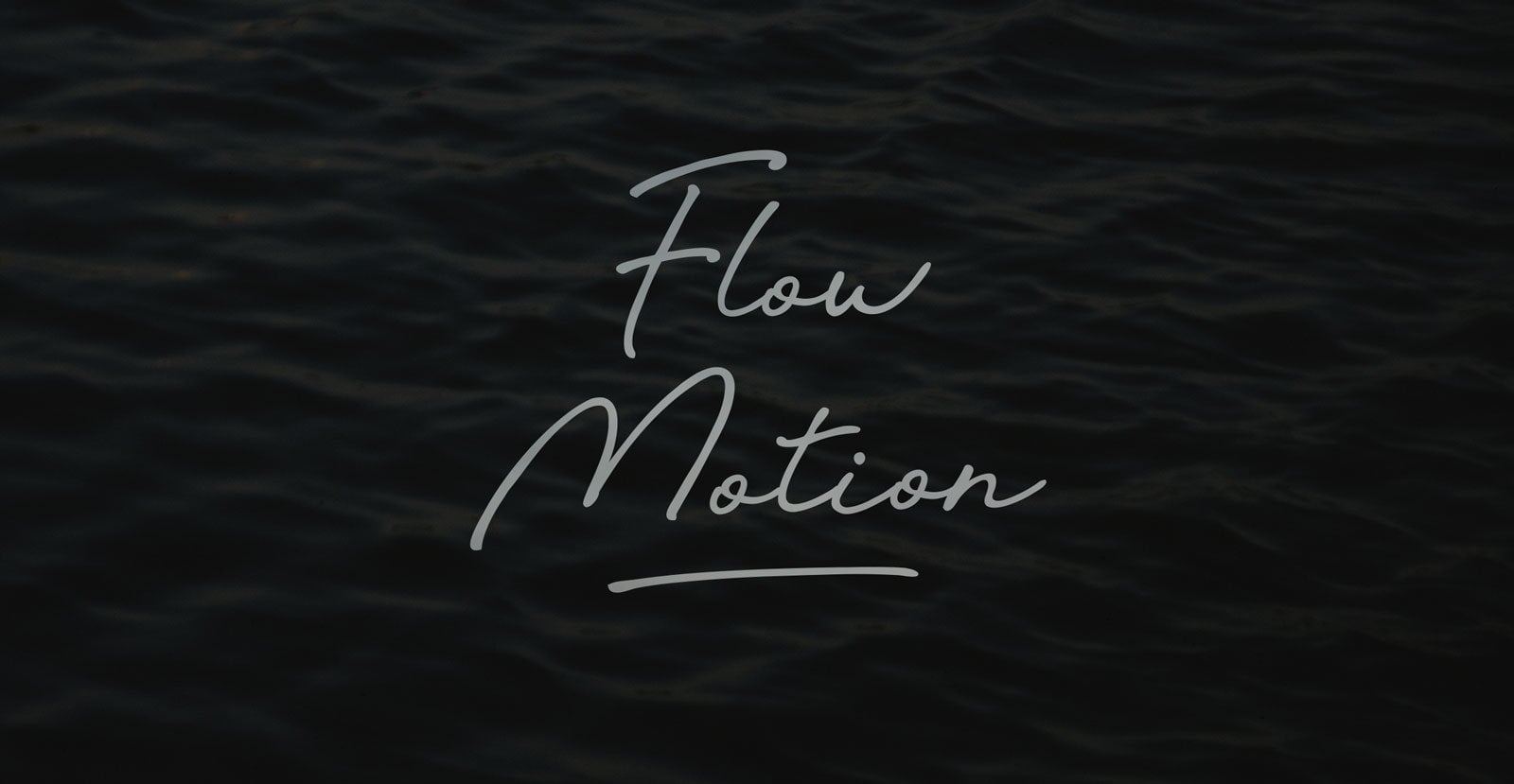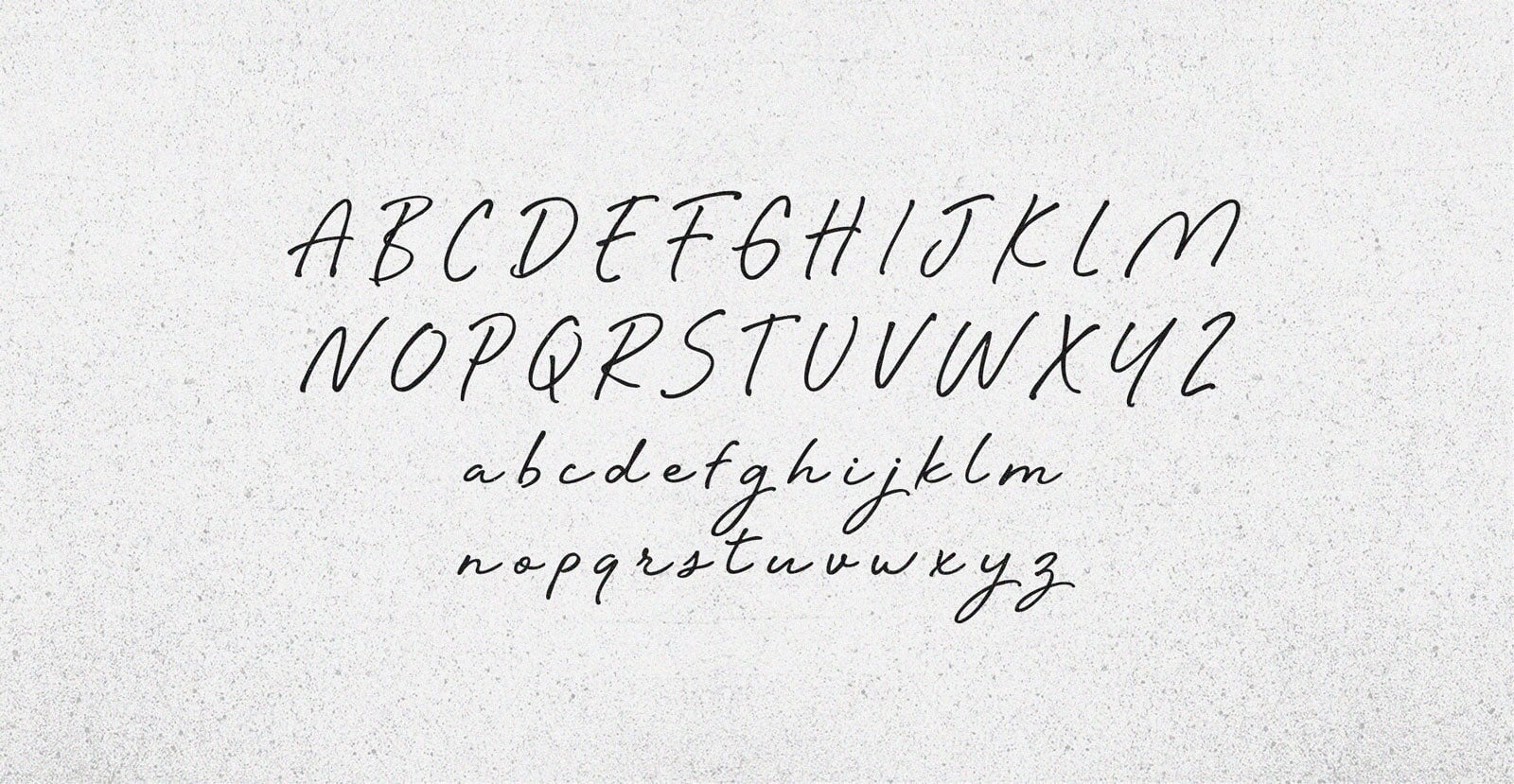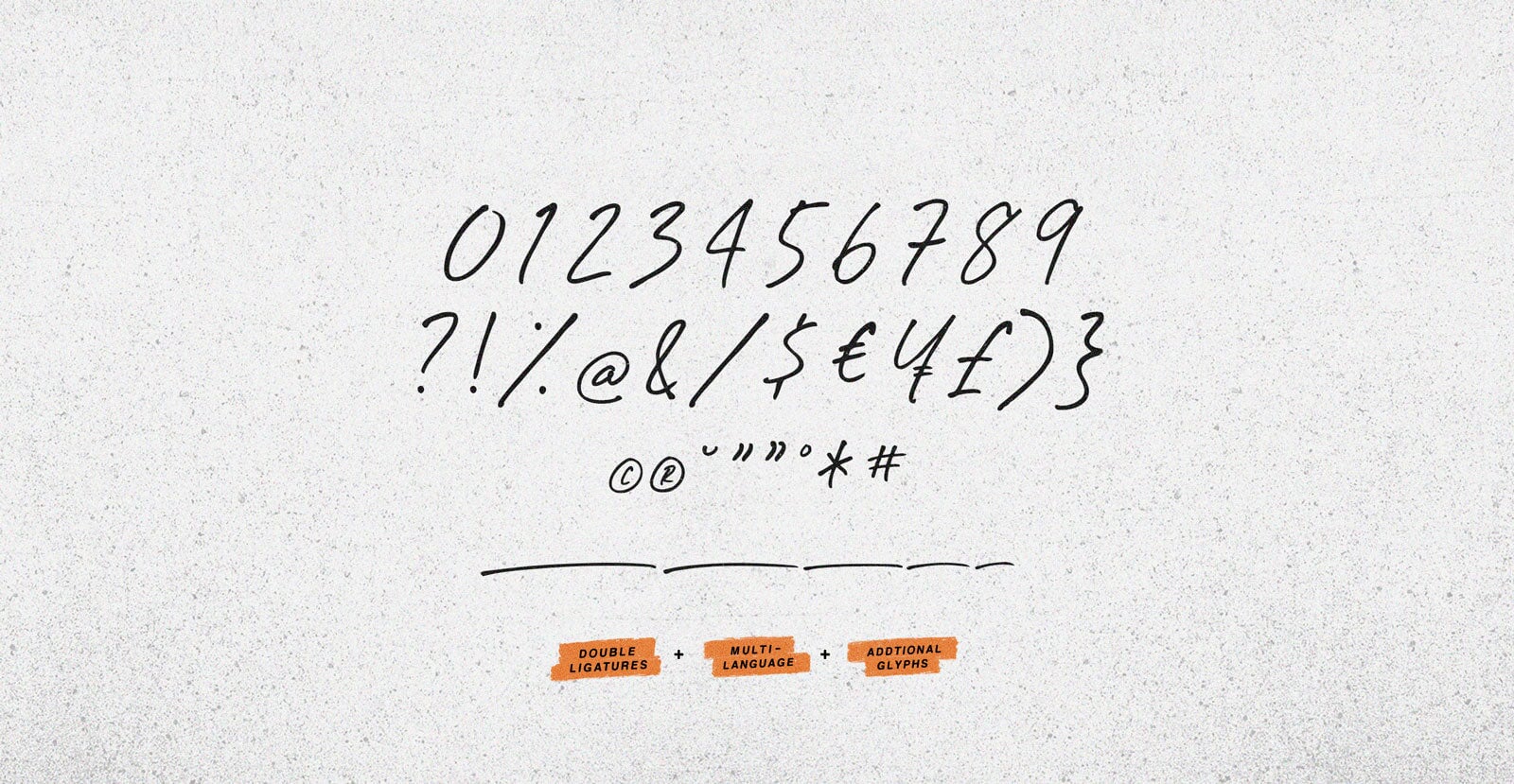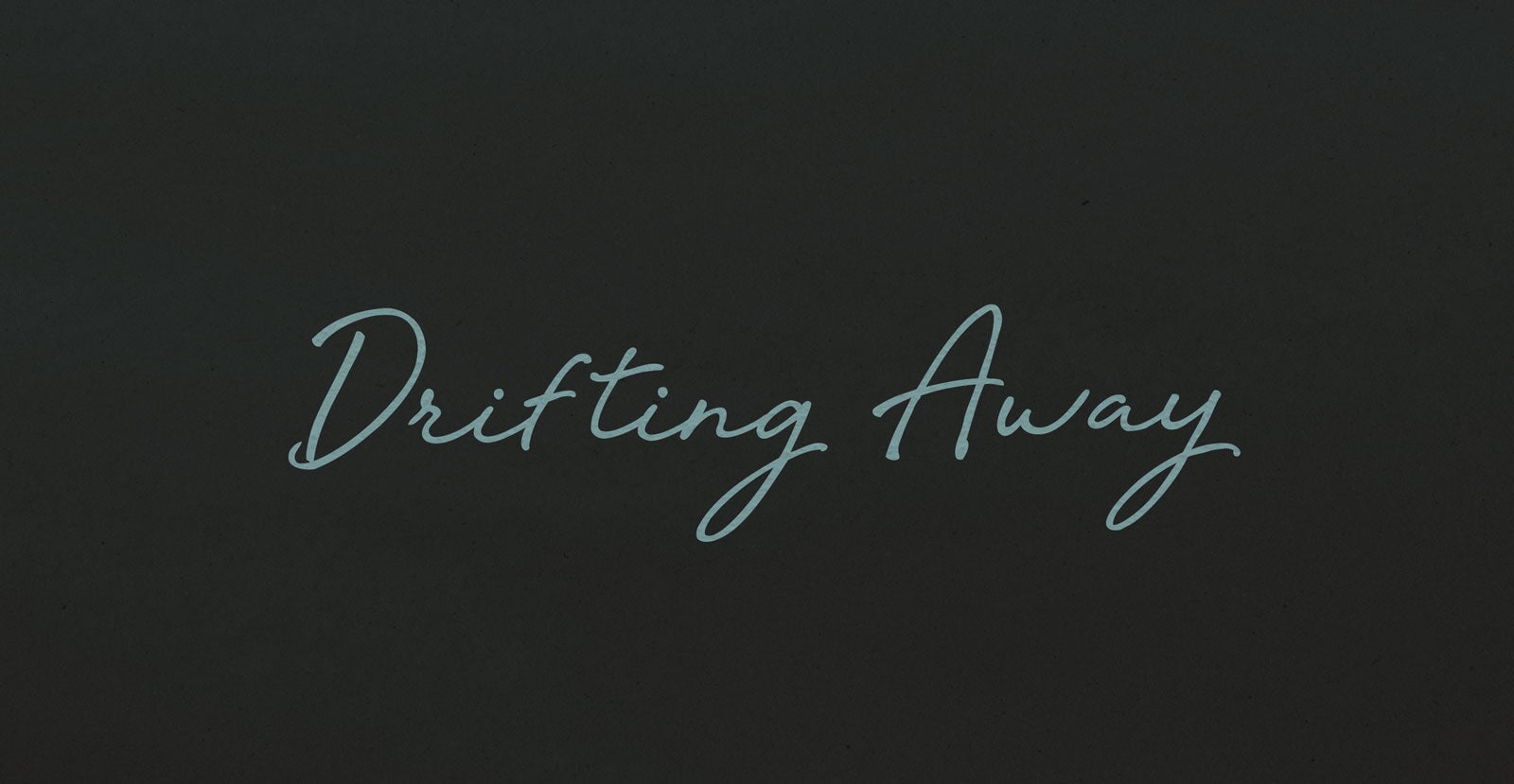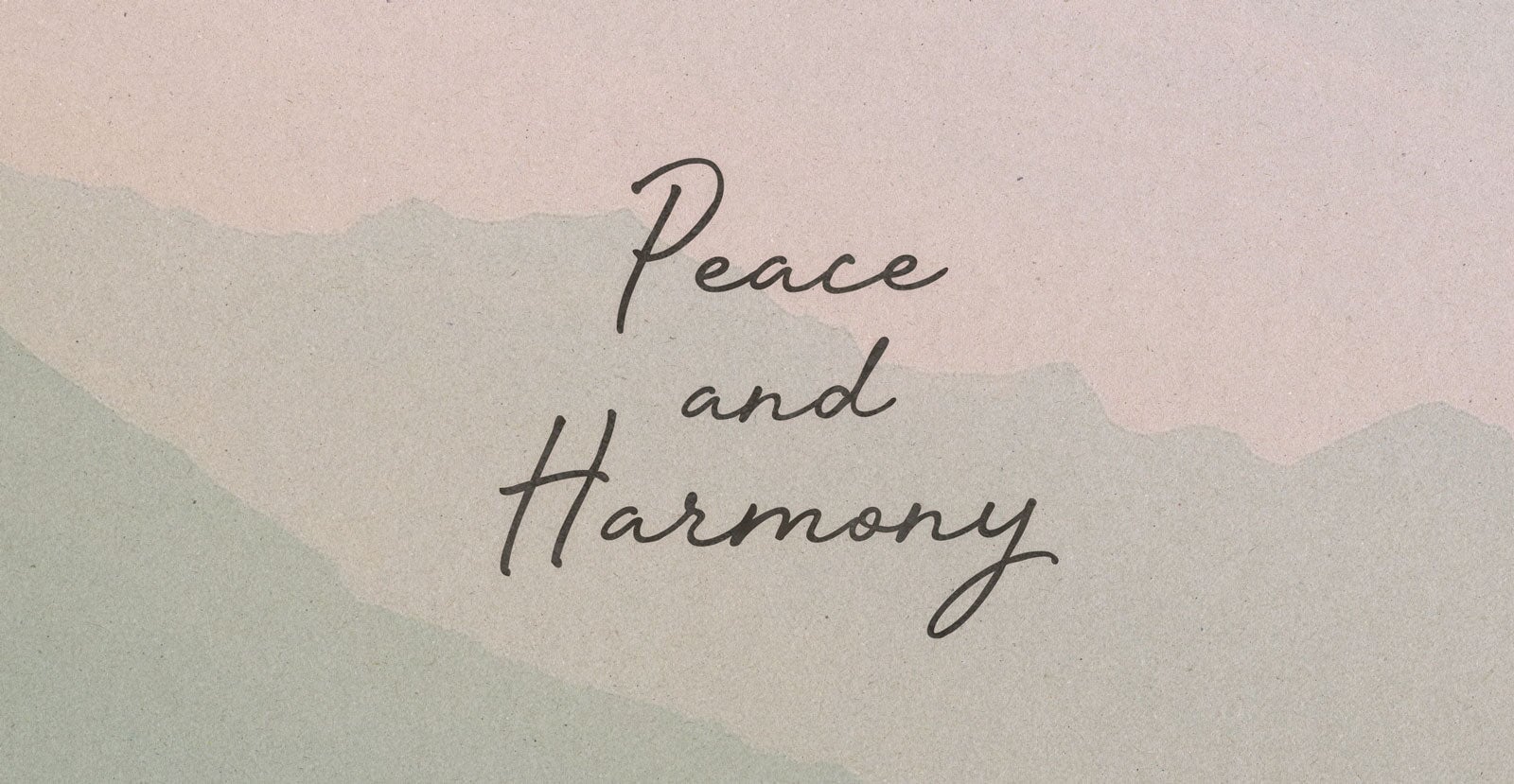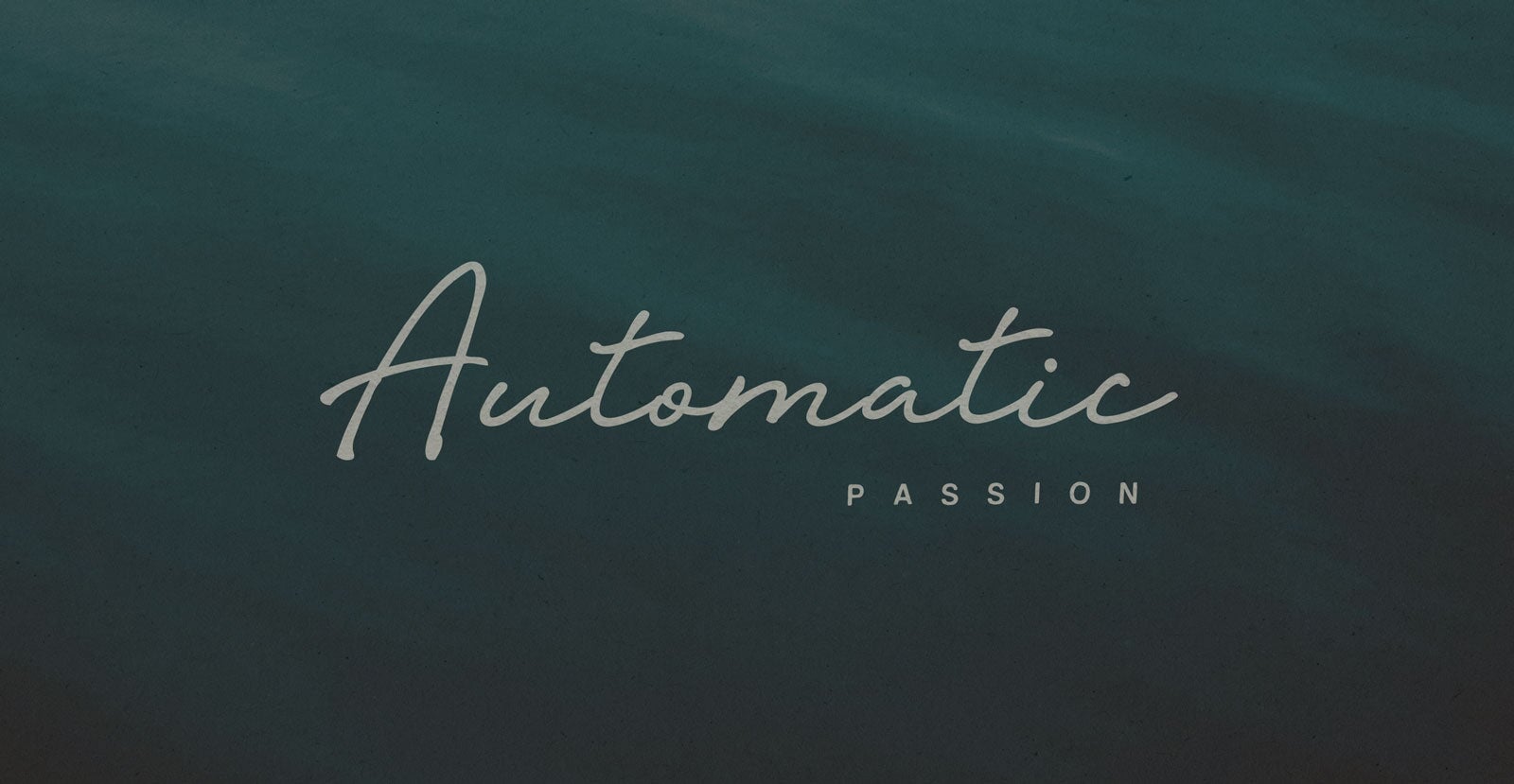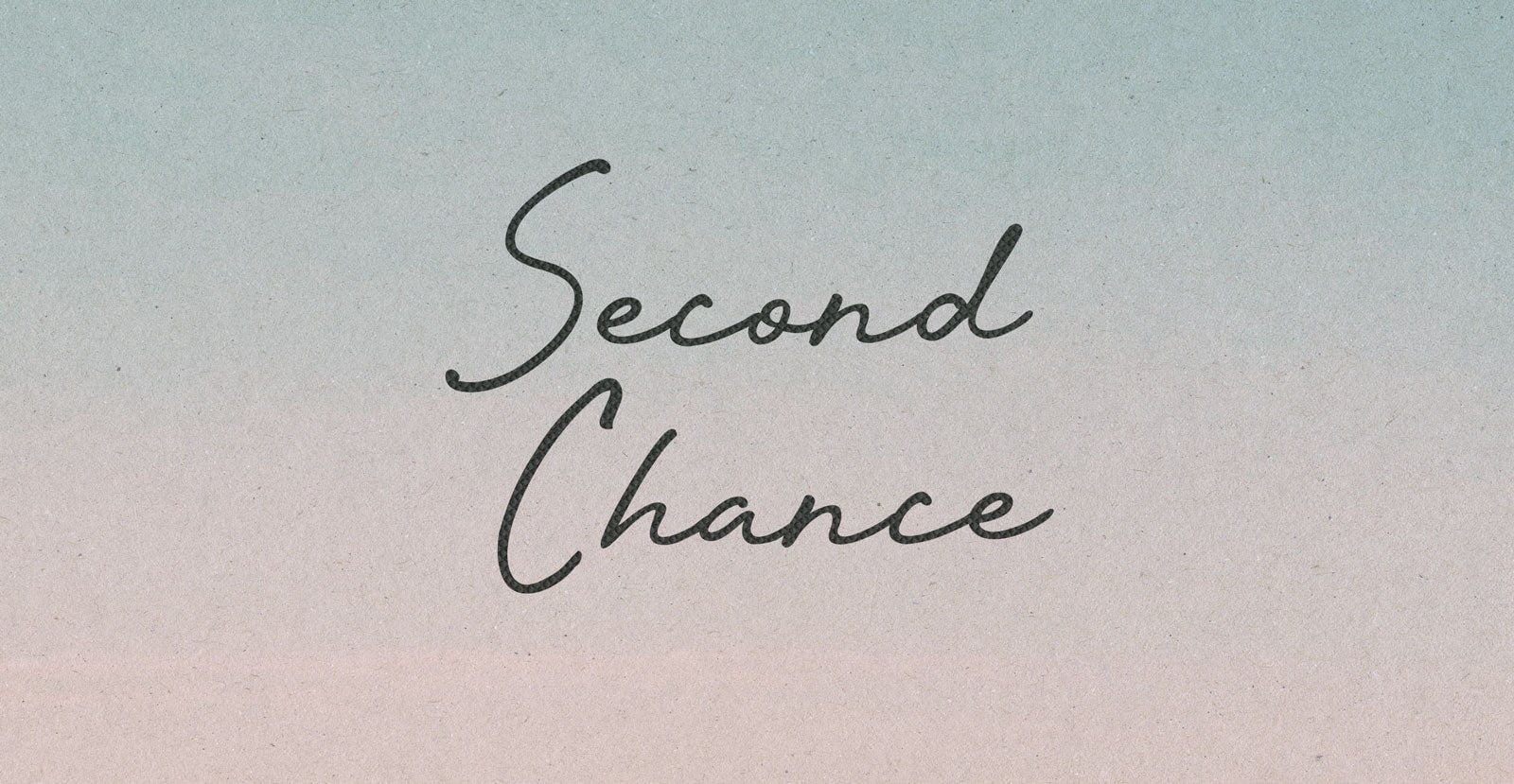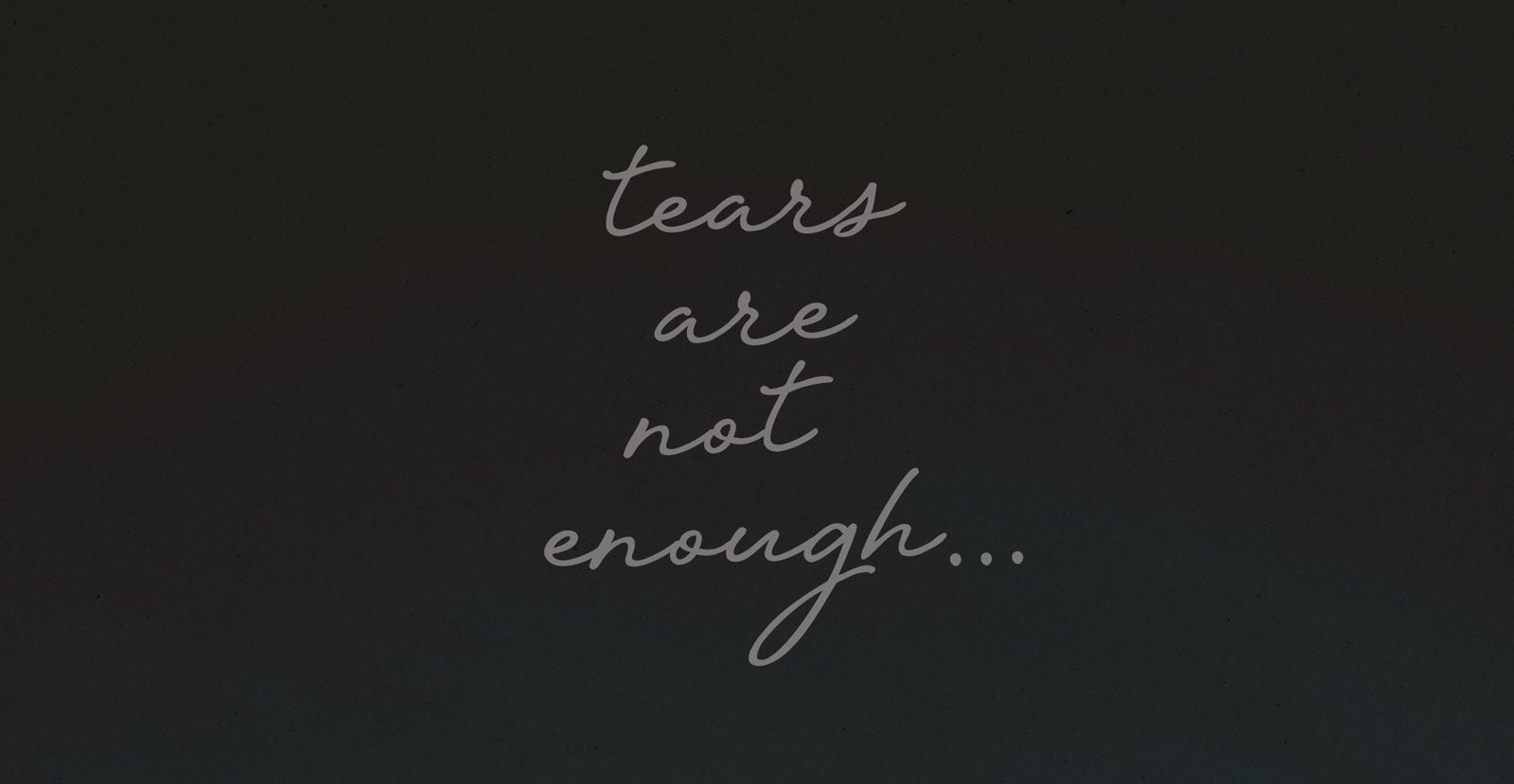
Flow Motion
Handwritten Pen Script Font
Distorted reality, surged through ethereal currents. Undefined logic swirling through dimensions unknown, as time convulsed and perspectives shattered. Warping the fabric of existence into a surreal absurdity.